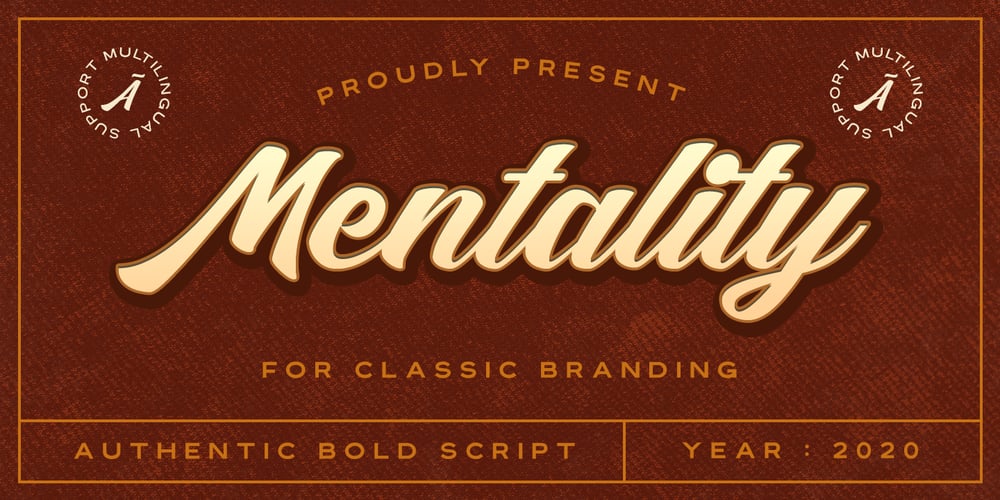
Mentality Font Family was designed by Abdul Malik Wisnu and published by Almarkha Type. Mentality contains 1 styles and family package options. Introducing our latest display typeface called Mentality A unique Fonts with vintage taste can make your logotype become more interesting. A bold script that will stands out from the crowd! Perfect to be used as logotype, badge and label!. inspired by the decorative arts and architecture movementMentality fonts is perfect for your project and allows you to create designs, headlines, posters, logos, badges, t-shirts and many more that are beautiful. It is also best used for posts, logos, posters, certificates, labels and more.What’s Included :Standard glyphsWeb FontMultilingual AccentWorks on PC & Mac , Simple installationsAccessible in the Adobe Illustrator, Adobe Photoshop, Adobe InDesign, even work on Microsoft Word. PUA Encoded Characters – Fully accessible without additional design software. Fonts include multilingual support